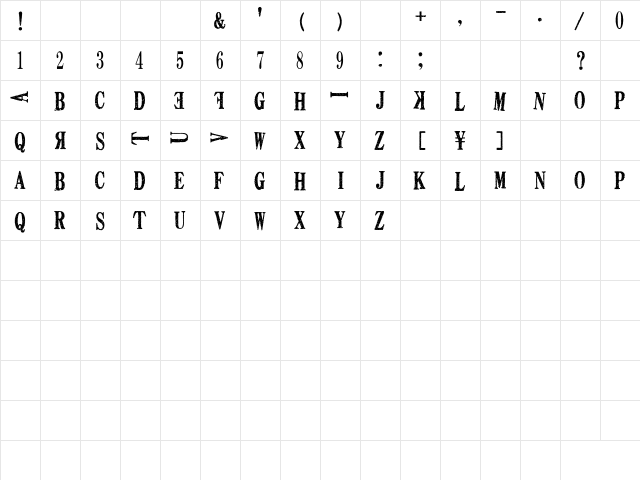
DEATH FONT ver1.0 Regular
Design Context for DEATH FONT ver1.0 Typeface
DEATH FONT ver1.0 leans into the macabre with letterforms designed to disturb and intrigue in equal measure.
Perfect for anything that needs to unsettle — game titles, horror branding, and macabre invitations.
Font Pairing: Pair with a clean neutral sans-serif for body copy to let DEATH FONT ver1.0's character lead without overwhelming the composition.
Pro Tip: Use DEATH FONT ver1.0 at larger display sizes for maximum impact. Consider generous tracking to let the disturbing character of each letterform breathe.